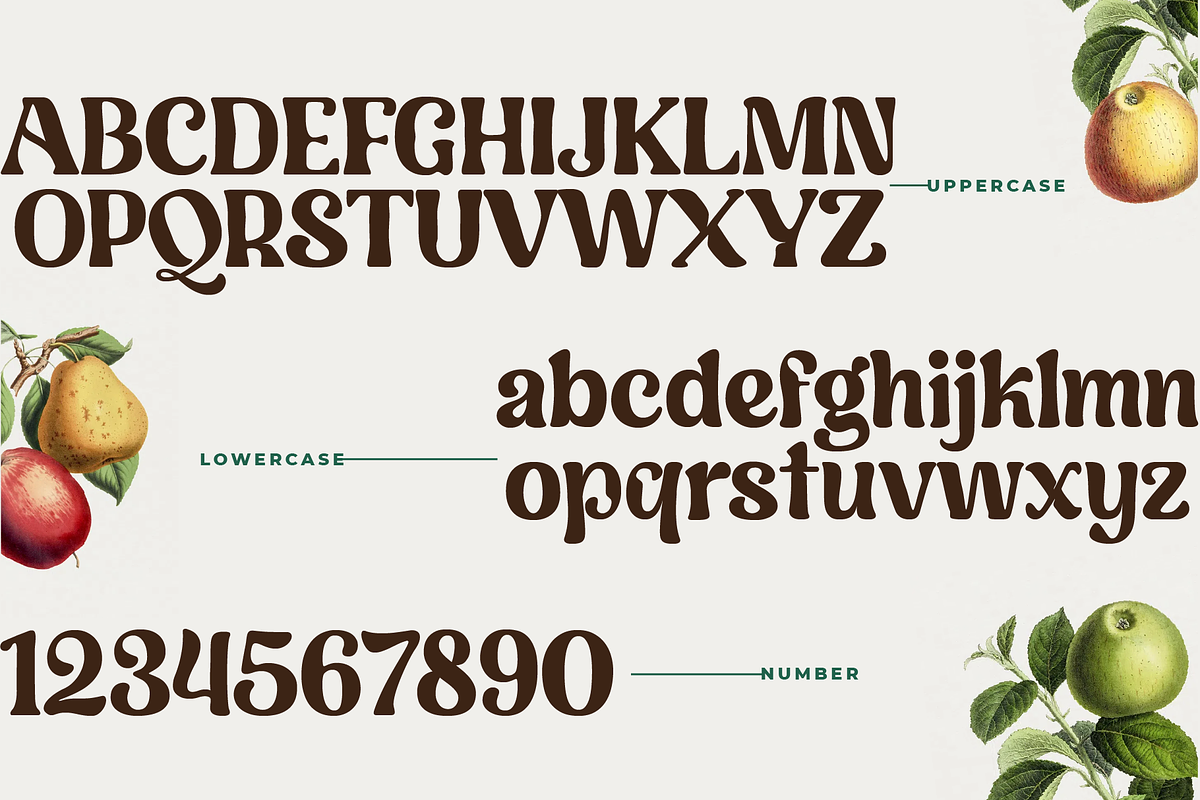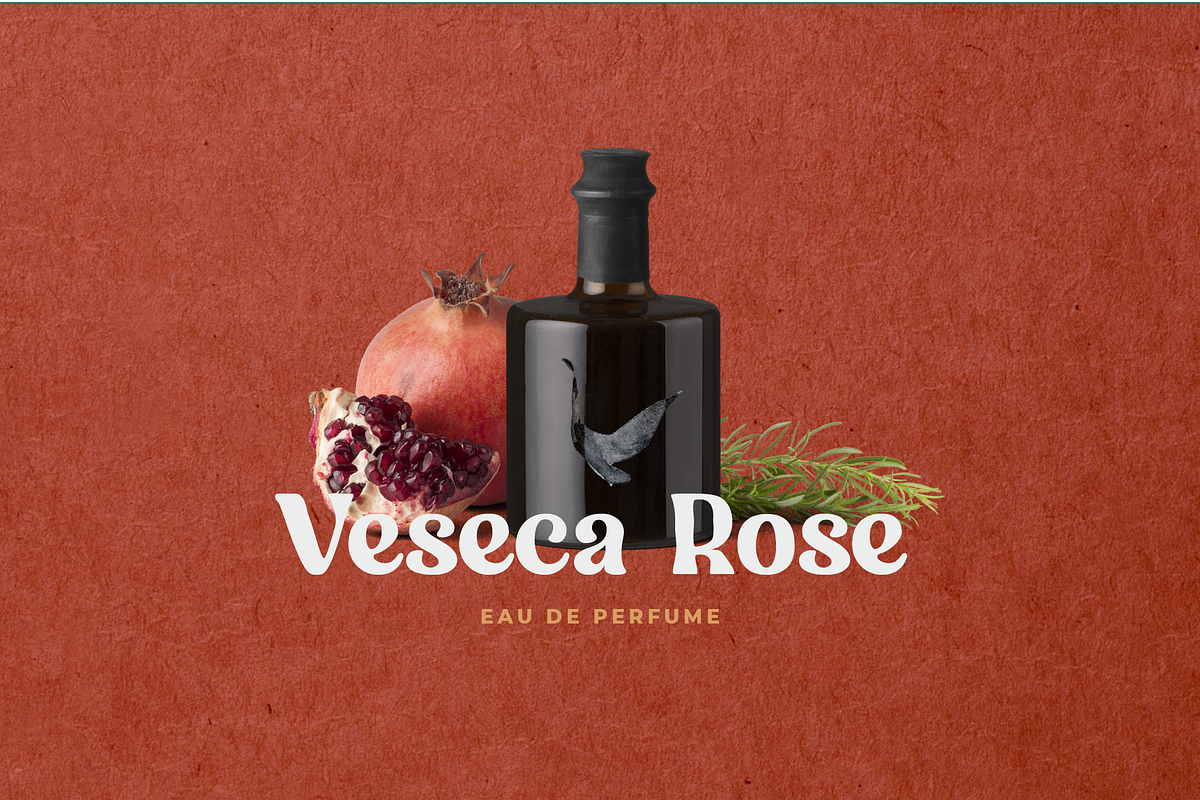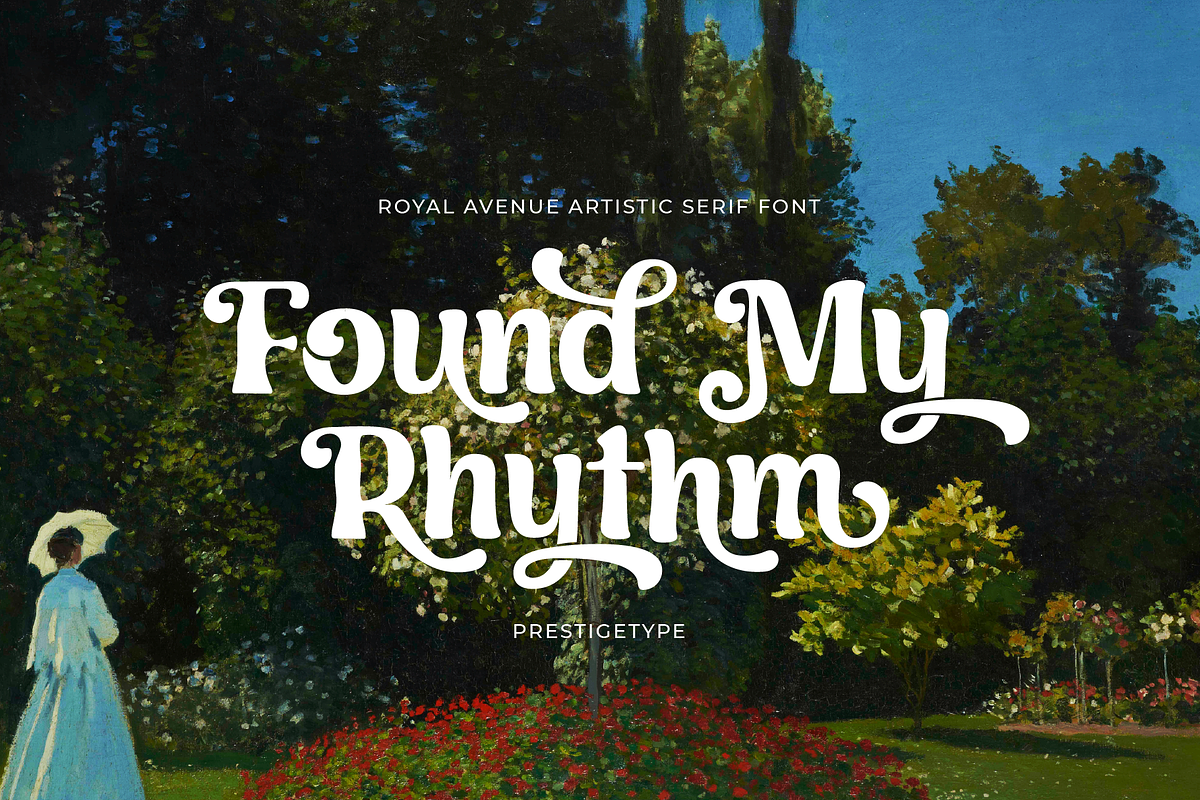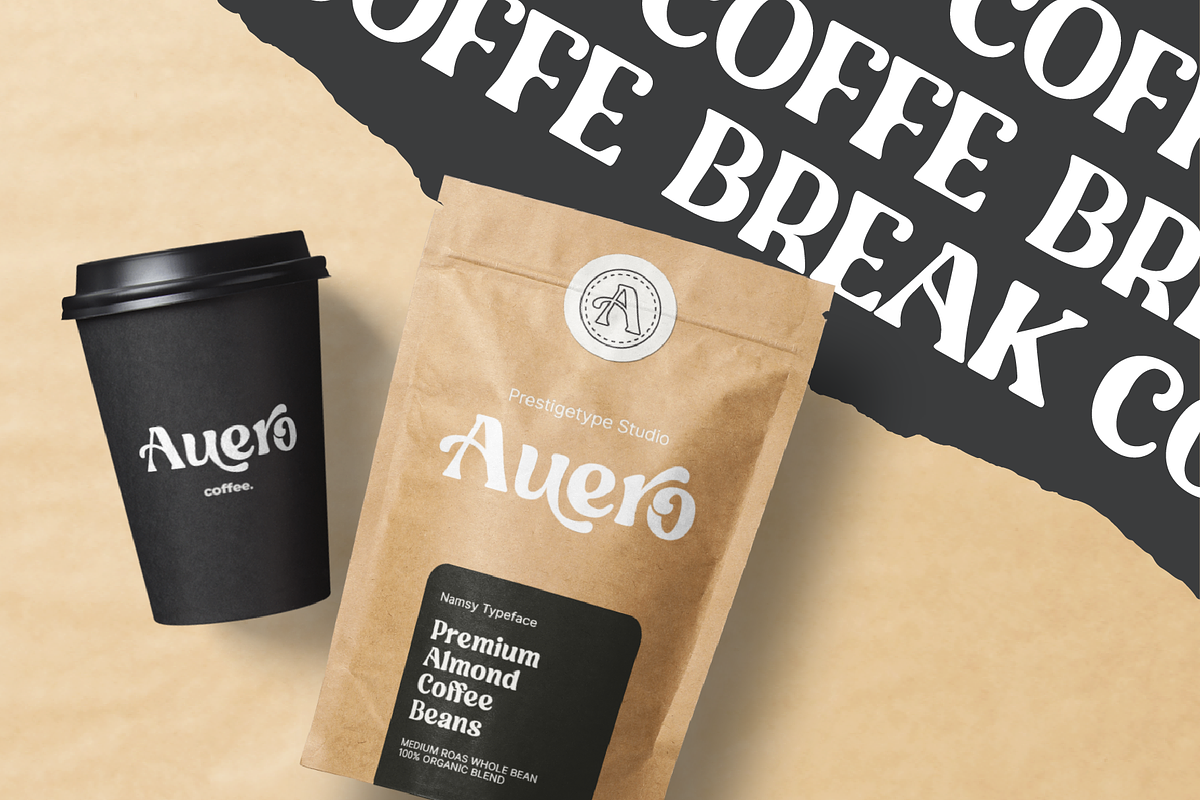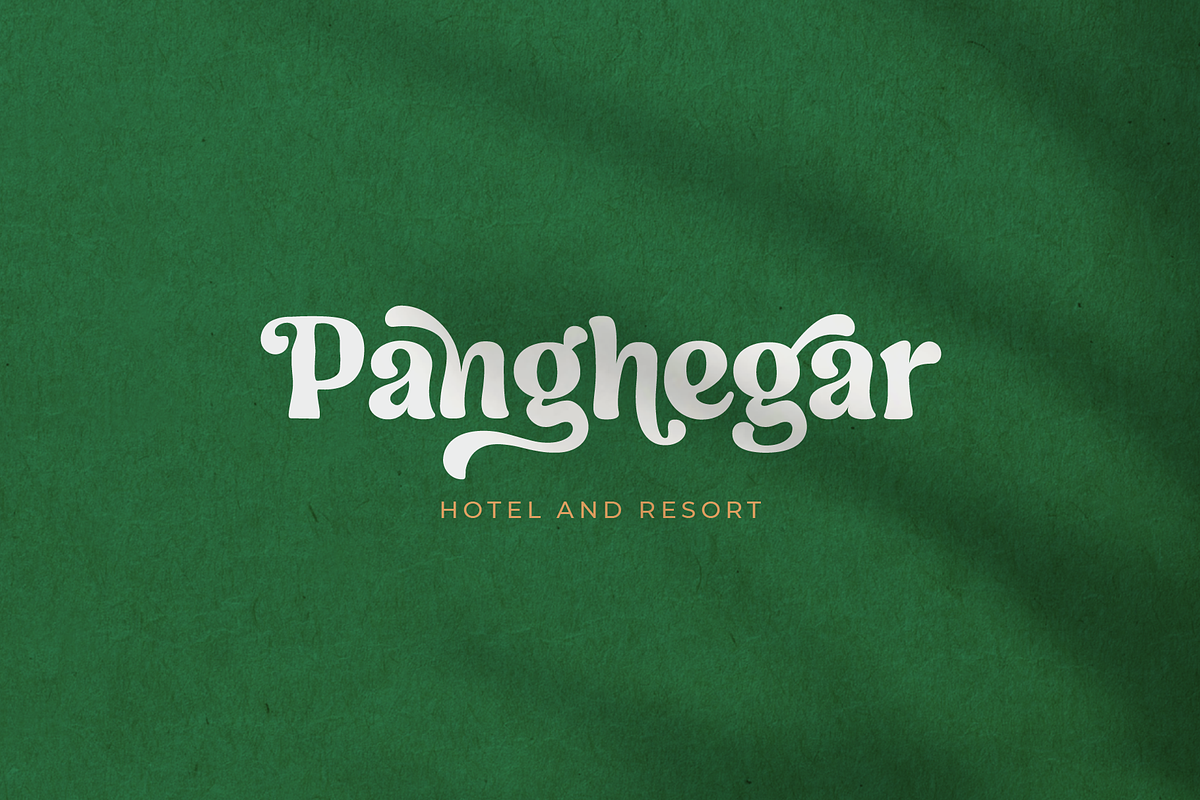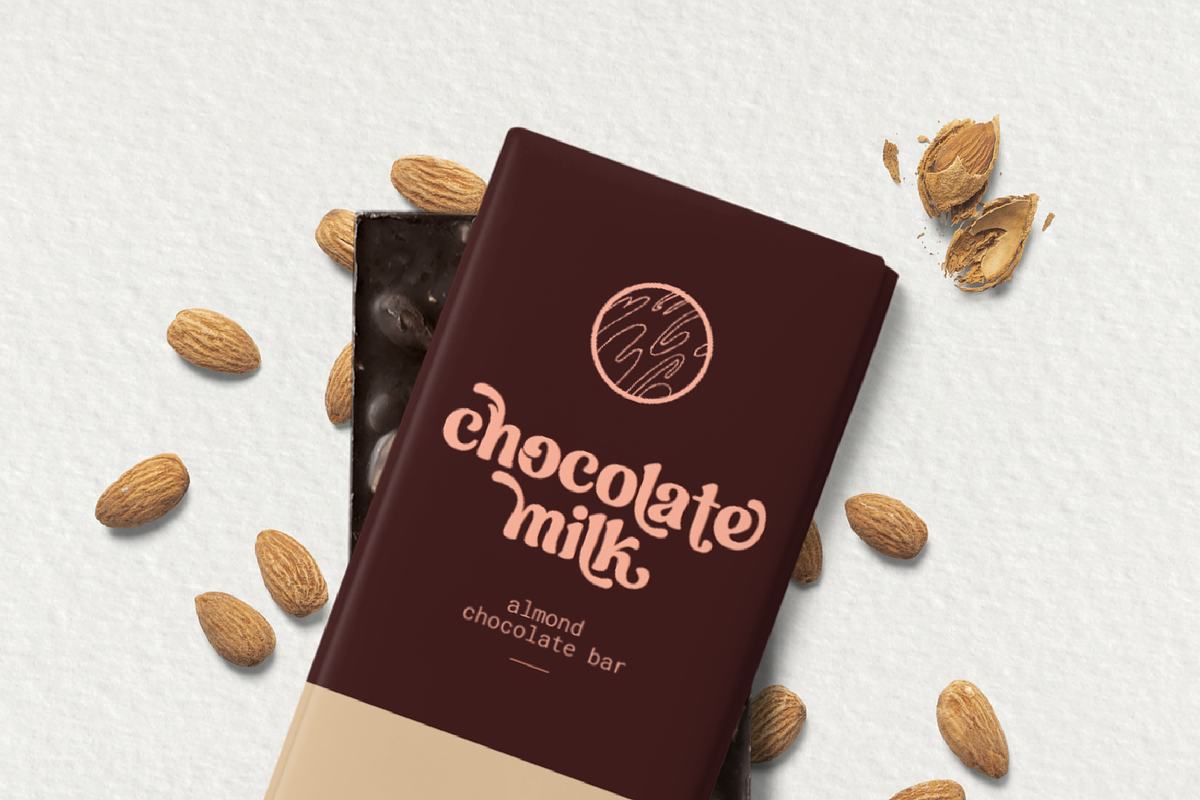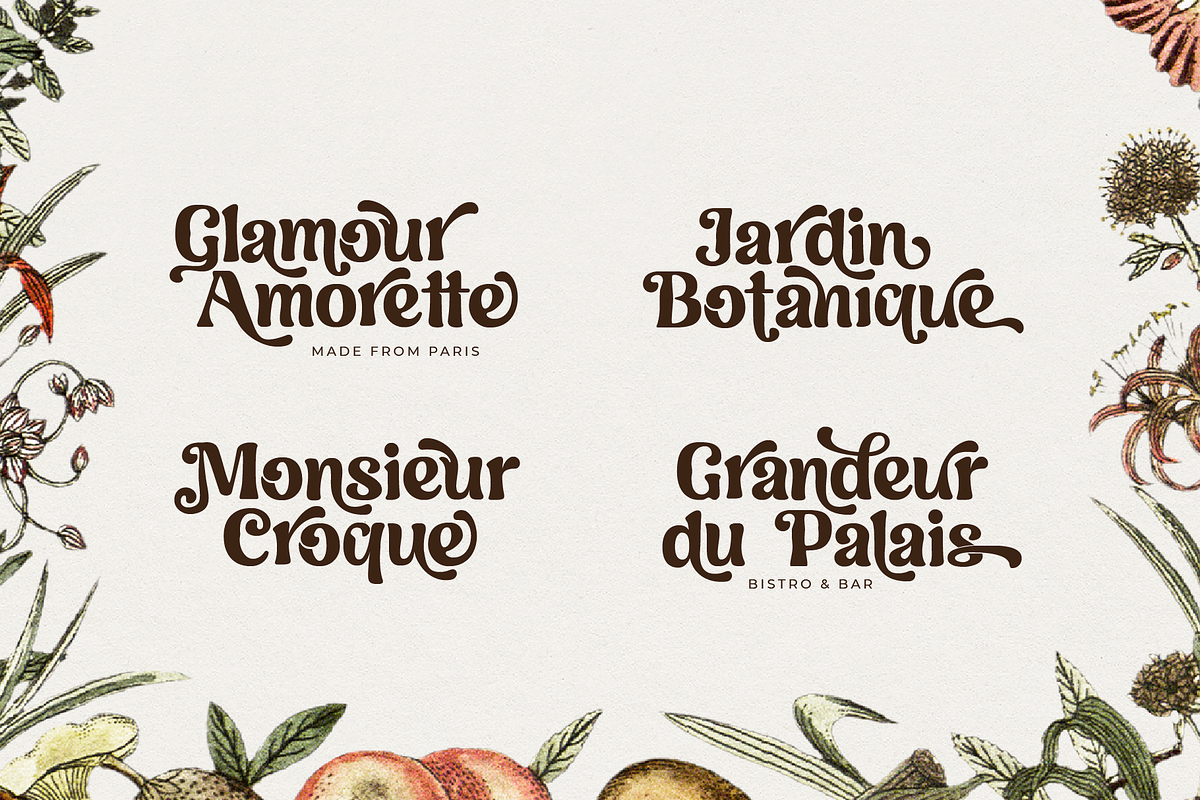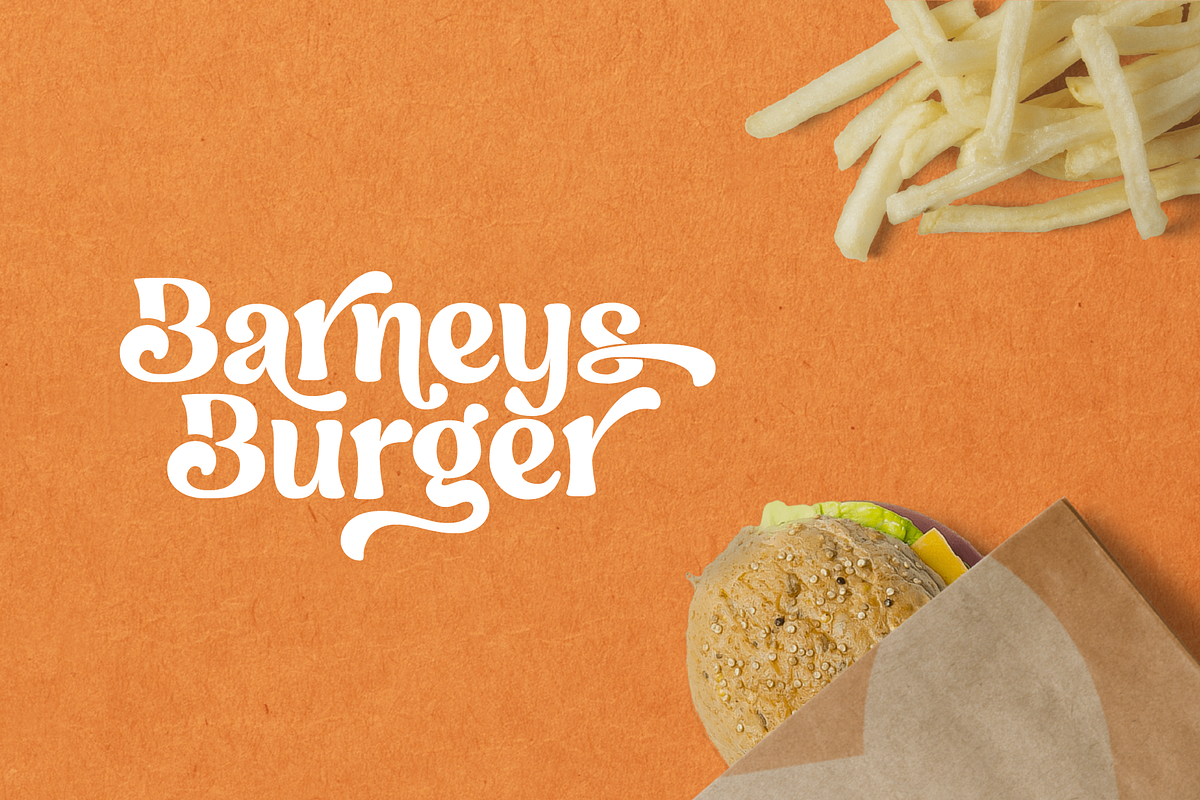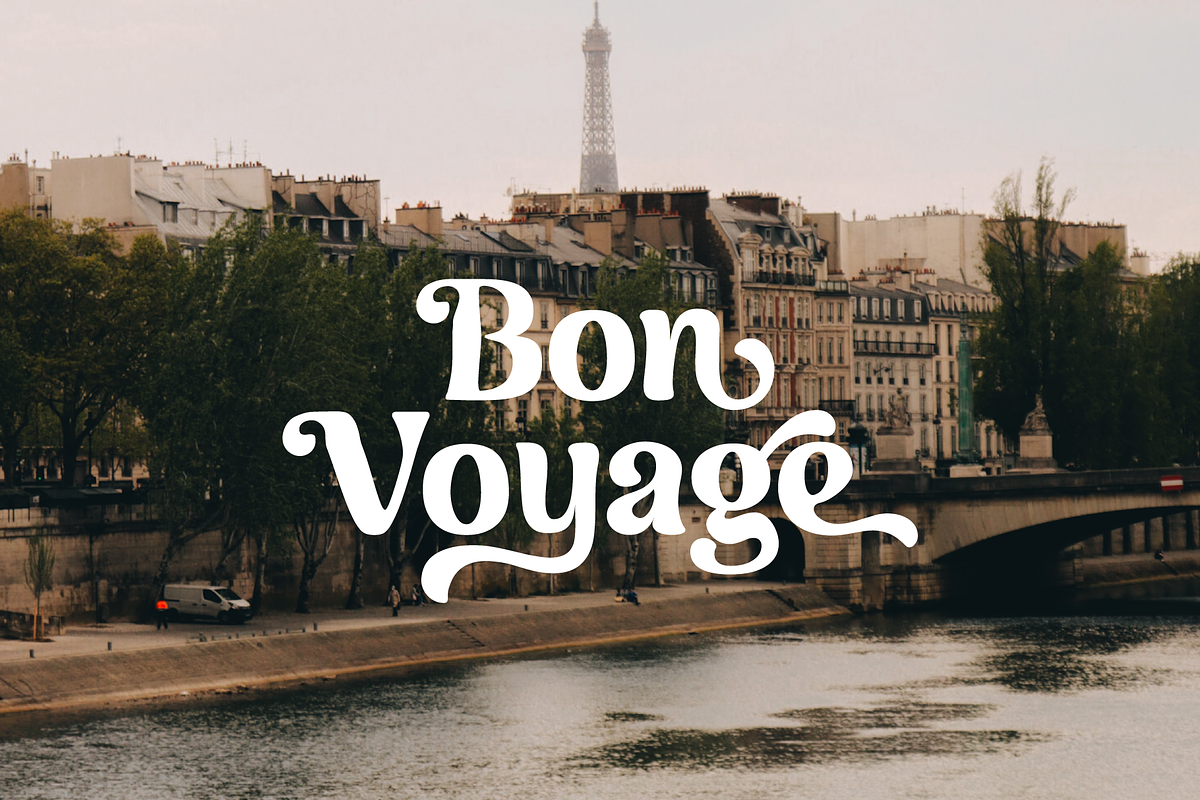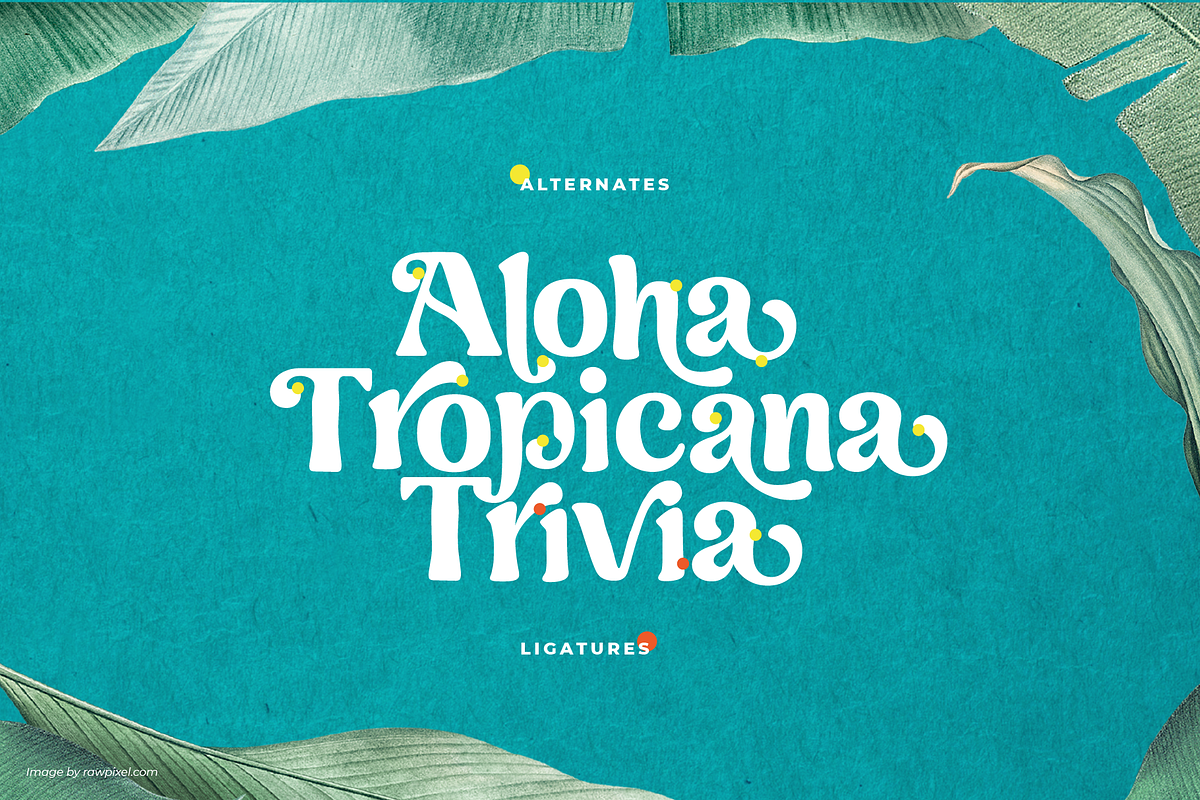
Royal Avenue Display Serif Font
Introducing Royal Avenue, a display serif font that exudes the sophistication and fancy feels you're looking for. Each is carefully character crafted with a unique touch. It's versatility and stylish appearance make it an excellent choice for any project, from logos and branding to packaging and social media graphics. Royal Avenue is the perfect choice for any project.
With multilingual support, ligatures, and an extensive alternate feature set, this font allows for freedom to explore and experiment with different variations, adding a unique touch to your designs and making them truly one-of-a-kind. It enables greater flexibility and creativity in your design work.
This font is perfect for catching your audience's attention and is ideal for any design project that requires a touch of elegance and style, making it a must-have for any designer or creative. We recommend using it for titles, headlines, and other attention-grabbing elements.